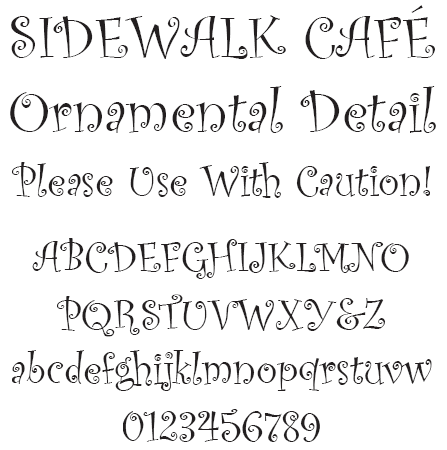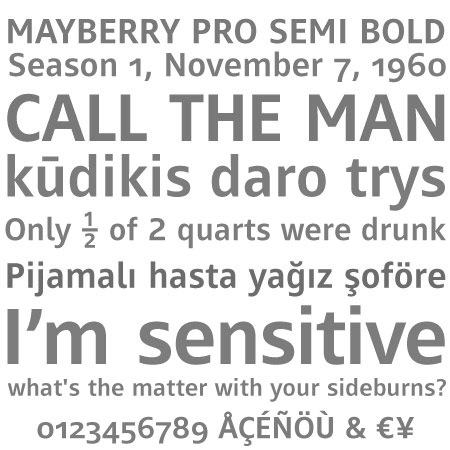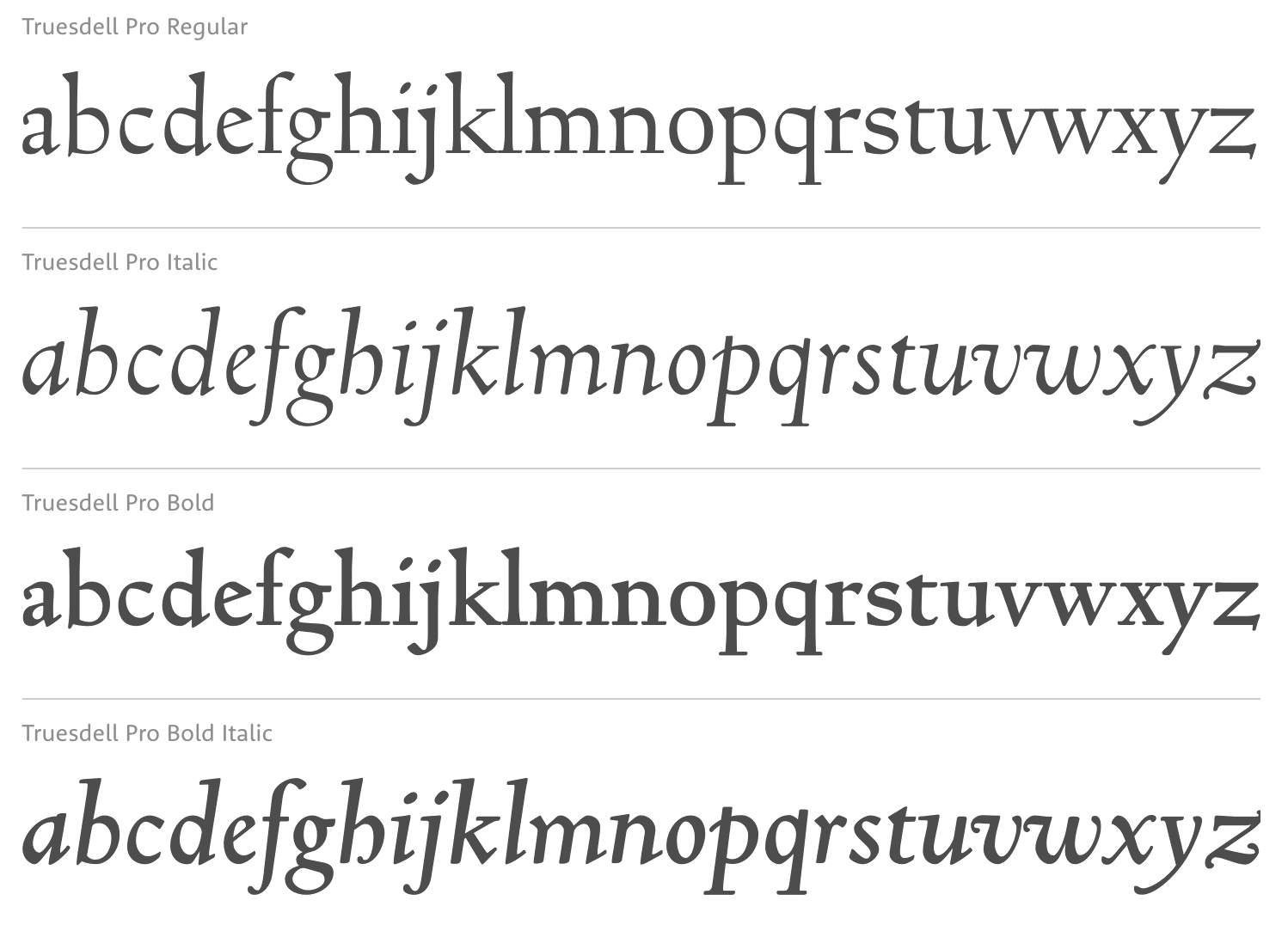
Steve Matteson
Rochester Institute of Technology's School of Printing graduate who lived in California and in Holland, MI, and now resides in Louisville, Colorado. He was a disciple of Chuck Bigelow and Kris Holmes. MyFonts page on him. In 1990, he started work at Monotype in Palo Alto to create the Windows truetype core fonts Arial, Times New Roman and Courier New. He stayed with Monotype and then Agfa/Monotype until 2003 (when he was probably fired, but that is only an unreliable guess), directing type development from the design office in Palo Alto, CA. Bio at Agfa/Monotype. He has directed branding projects such as Agilent Technology's corporate sans serif and Microsoft's corporate font family 'Segoe'. At the same time, he was involved in producing bitmaps and outline fonts for cell phones and TV set top environments. He has worked extensively designing Greek, Cyrllic, Thai, Hebrew and Arabic alphabets to satisfy the requirements of customers such as IBM, Microsoft, Nokia, Sun and Sybase. In 2004, he co-founded Ascender Corporation in Northbrook, IL, where he remained Type Design Director until Ascender was bought by Monotype, where he now heads the type design team (12 people in all, as of 2013).
His typefaces:
• Amanda.
• Andale Mono (Monotype), Andale Mono (Ascender). This is a monospace sans-serif typeface designed for terminal emulation and software development environments. It was originally created by Monotype. Andalé Mono was first distributed as an Internet Explorer 4.0 add-on under the name Monotype.com. In version 1.25 of the font, it was renamed to Andale Mono, distributed with Internet Explorer 5. It is often used by programmers, and is bundled with Mac OS X.
• Andy (Monotype), his first face, a design based on a friend's lefty handwriting. Published at Agfa's Creative Alliance.
• Arimo (2010). A free sans family at Google Web Fonts that is metrically compatible with Arial. TeX support and further downloads on CTAN.
• Ascender Sans Mono (2004-2008, Ascender). Metrically compatible with Courier New. Ascender Serif (2005, 4 styles) is metrically compatible with Times New Roman.
• Ascender Uni Duo is a fixed-width comprehensive Unicode-compatible font available with support for the Unicode Standard. Ascender Uni Duo is a 39MB TrueType font with approximately 53,000 glyphs. The Latin and related glyphs (designed by Steve Matteson) are Sans Serif, with Gothic ideographs drawn in Japanese style, and complementary styles for other scripts. There are also versions of Ascender Uni that provide localized support for Korean, Simplified Chinese and Traditional Chinese. OpenType layout support is included for Arabic (initial, medial, final, isolate, and required ligature forms, as well as basic mark positioning), and vertical writing for CJK locales (consisting mostly of Latin, symbol, punctuation, and kana glyph variants). Character Set: Latin-1, WGL Pan-European (Eastern Europe, Cyrillic, Greek and Turkish), Chinese, Japanese, Korean, Thai, Vietnamese, Hebrew, Arabic. Ashley Crawford.
• Ascender Sans (Ascender).
• Ascender Serif (Ascender).
• Ayita (2006, Ascender), a decorative sans family co-designed with Jim Ford.
• Bertham Pro (2009, Ascender). Four styles including Open, after Goudy's Bertham.
• Bierstdat (2021). A sans typeface that could replace Calibri later in 2021 as Microdoft's go-to font in Microsoft 365 apps.
• Blueprint (1993).
• Binner Gothic (Monotype).
• Blueprint (Monotype).
• Cambria (Ascender).
• Carnero (2019, Monotype). Steve describes this sans family as a feisty hybrid of precise geometry and calligraphic flair.
• Chicory (2006, Ascender). A calligraphic script face.
• (2010). A free family at Google Code that is metrically compatible with Courier New. See also OFL.
• Creepy (Ascender Corporation): a Halloween font designed with Carl Crossgrove.
• Curlz (1995, Monotype). Done with Carl Crossgrove, based on wrought iron on chairs.
• Dempster (2016, with Jim Ford at Ascender). The original iangular industrial design, by Jim Ford, goes back to 2010.
• Droid Sans Mono Pro (Ascender), Droid Sans Pro (Ascender), Droid Serif Pro (Ascender). and Droid Sans Mono: a font family designed in 2006-2007 by Steve Matteson at Ascender for Google's Android project, mobile phone software for handsets. Free download at CTAN.
• Dujour (2005, Ascender): an art deco revival of the 1930's typeface Independant by Joan Collette and Jos Dufour for Plantin. Compare with the free Independant by Apostrophic Labs.
• Endurance Pro (2009, Ascender): neo-grotesque sans. Endurance Pro Cond (Ascender).
• Facade (Monotype).
• Fineprint (Monotype). A design loosely based on his own penmanship ("on a good day"). Another Creative Alliance face.
• Friar Pro (2009, Ascender): Friar Pro is a revival of Frederic W. Goudy's "Friar" typeface. Goudy described this typeface design as a 'typographic solecism' as it combines a lowercase of half-uncial forms from the 4th through 7th centuries with an uppercase of square capitals from the 4th century. Friar was originally designed in 1937 and used to print a Christmas keepsake produced by Goudy and printer Howard Coggeshall. The fire that burned Goudy's studio in 1939 destroyed the drawings and matrices before many metal fonts were cast. Of all that was lost in the fire, Goudy once said he missed Friar the most.
• Futura Now (2020: a 107-style family by Steve Matteson, Terrance Weinzierl, Monotype Studio and Juan Villanueva, that includes variable fonts as well as subfamilies called Text, Display, Headline, Inline, Outline, Shadow and Script).
• Georgia Pro (Ascender).
• Gill Floriated Caps.
• Goudy Fleurons (2010, Ascender).
• Goudy Modern MT (Monotype).
• Goudy Ornate (2002). Unsure if Matteson made this or Carl Crossgrove.
• Kennerley. Based on Goudy's Kennerley family.
• Kidprint (Monotype).
• Kootenay (2006, Ascender), a sans family.
• LeBeau (Ascender): a signage font.